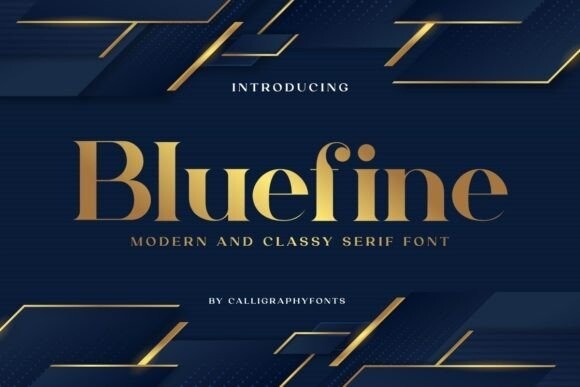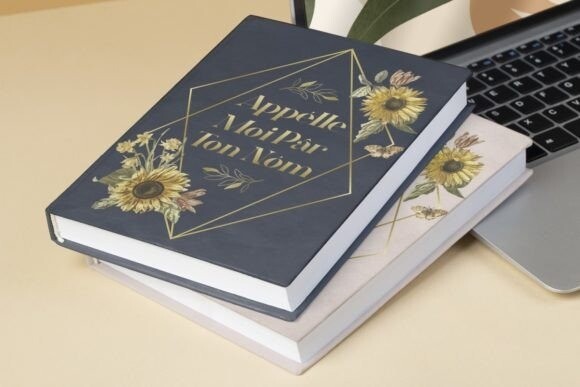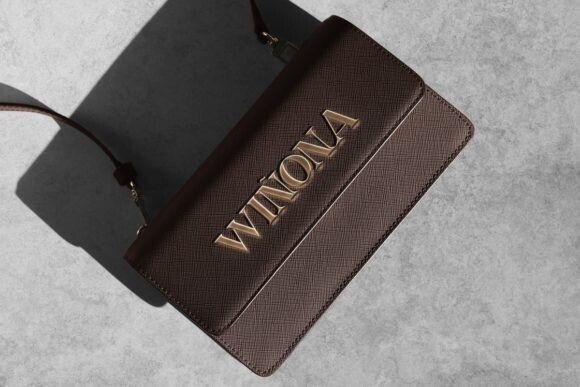
Bluefine Font
Bluefine Font is a timeless serif font with elegant details and clean lines. Its refined curves and balanced proportions exude sophistication, making it perfect for editorial design and high-end branding. Whether used for print or digital applications, Bluefine commands attention with its timeless beauty and timeless appeal.